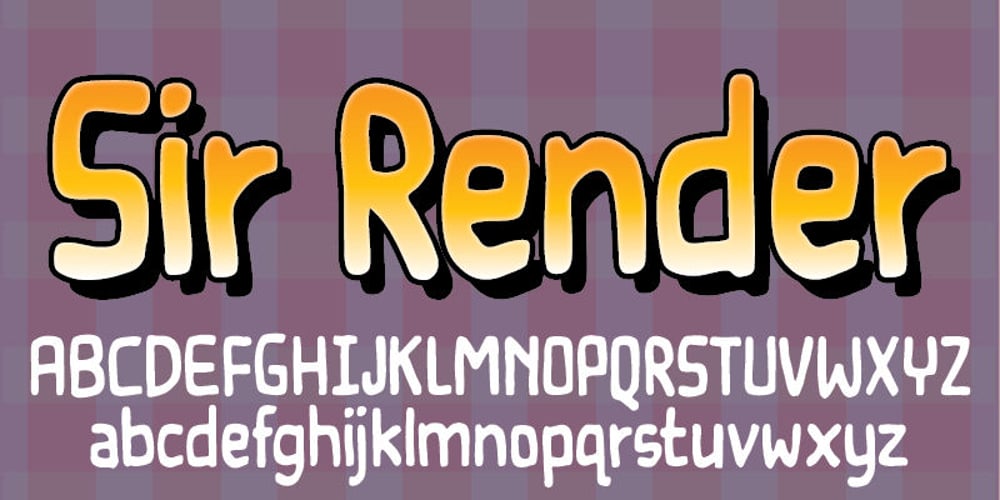
Sir Render Font Family was designed by Jakob Fischer and published by PizzaDude.dk. Sir Render contains 1 styles and family package options. Kind of squarish handtraced comic font, yet with soft edges. Use it for massive text, speech balloons or just headlines. You will need to use OpenType supporting applications to use the autoligatures.